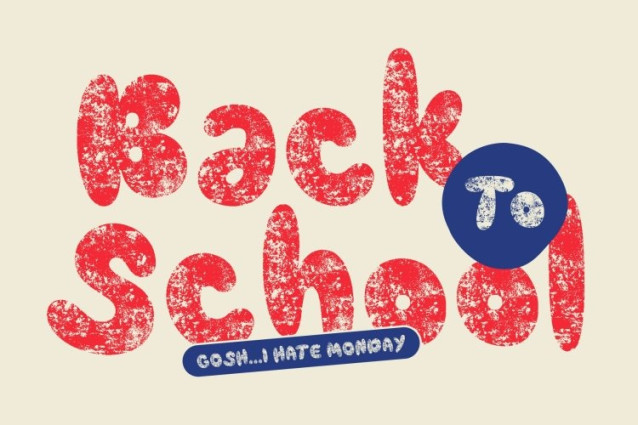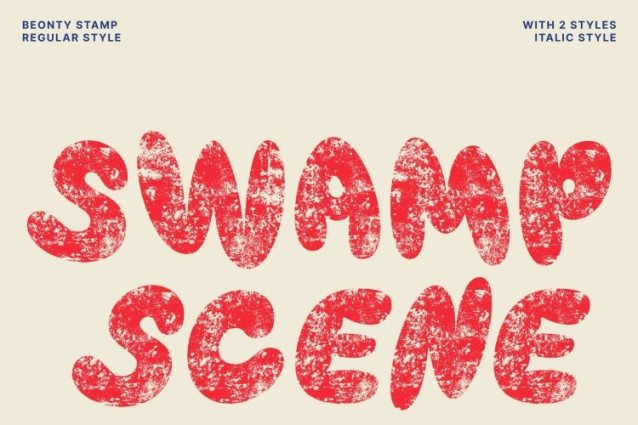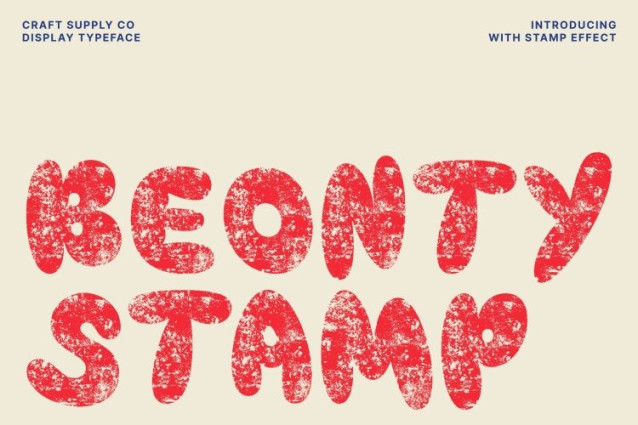
Beonty Stamp Font
Beonty Stamp Font This is a bubble-inspired display font designed to bring instant joy and character to any layout. Its rounded, full-bodied shapes radiate a cheerful personality, making every word feel lively and engaging. The playful curves add softness and approachability, perfect for designs that aim to communicate warmth, fun, and creativity.
Vintage Stamp Texture for Artistic Warmth
What makes this font truly stand out is its artistic stamp effect, giving each letter a unique handcrafted look. The textured finish creates a nostalgic, worn-in feel reminiscent of retro printing methods. This blend of bubble shapes and vintage texture produces a warm, expressive aesthetic that feels both playful and timeless ideal for adding emotional depth to visual storytelling.
Ideal for Event Posters, Retro Concepts, and Creative Branding
This font shines in projects that require a lively mood with a touch of retro charm. Whether you’re designing event posters, vintage-themed layouts, creative campaigns, packaging, or promotional materials, this font instantly elevates the visual impact. Its friendly forms and textured style capture attention and deliver a distinctive personality that feels both fun and memorable.
Versatile, Warm, and Perfect for Standout Displays
With its blend of dynamic curves and warm stamp texture, this font offers exceptional versatility for display-oriented design. It works beautifully in both print and digital spaces, making headlines, titles, and branding elements feel expressive and inviting.